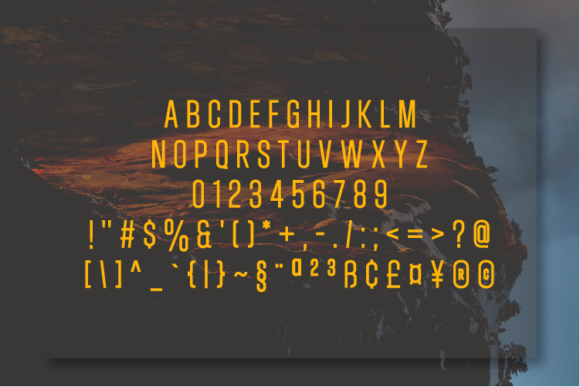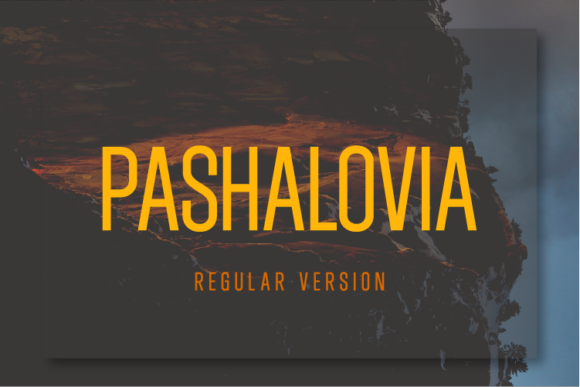
Pashalovia Font
About Pashalovia Font
Pashalovia is a versatile sans serif with minimum contrast strokes, closed apertures and geometric shapes as characters. This typeface will deliver any message with style, clarity and legibility.